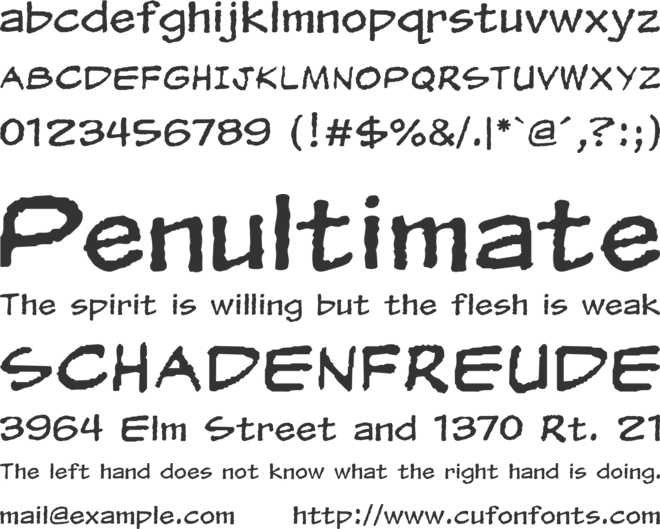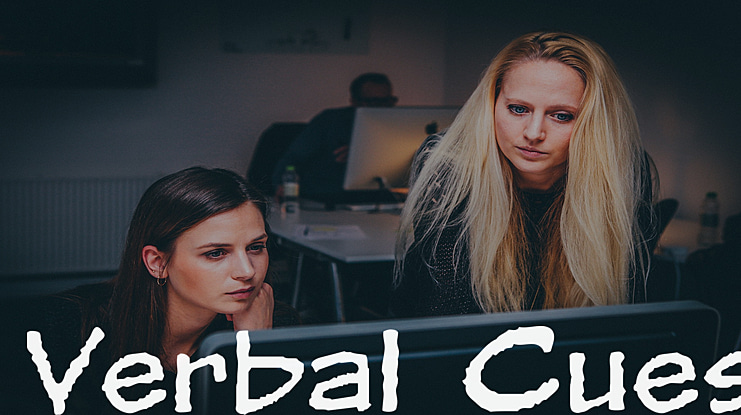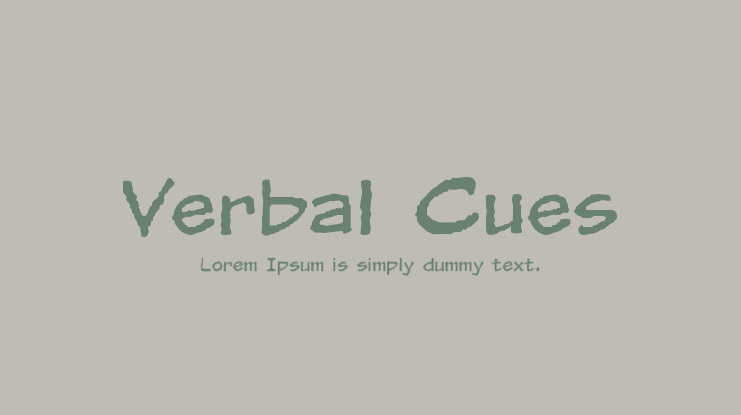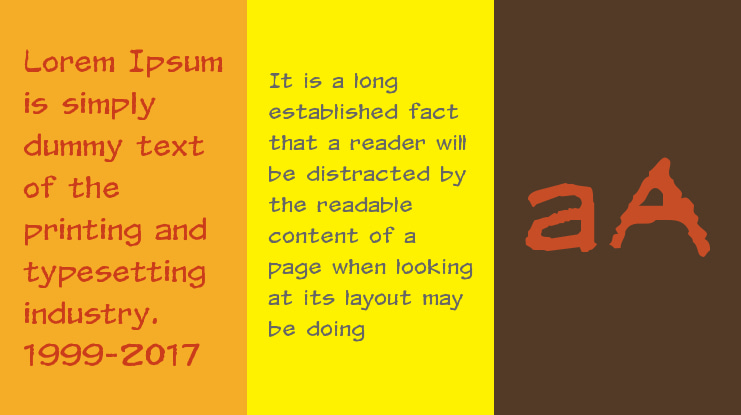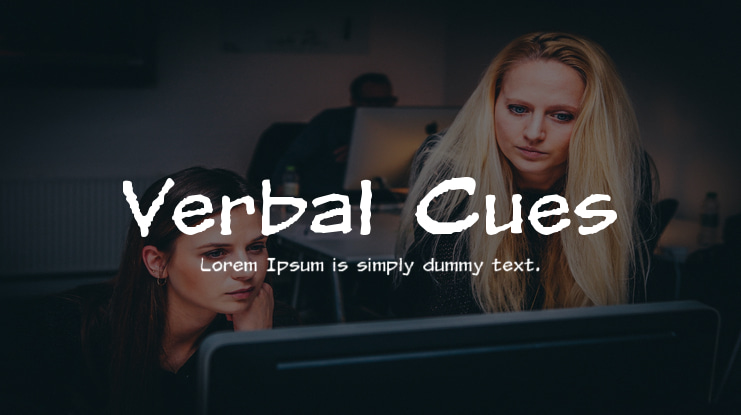
Verbal Cues Font Family
Verbal Cues is based on text styles from old comic books. While researching comic book lettering for the production of our Superhero family, we discovered some very interesting lettering styles along the way. Verbal Cues is a collection of some of the best of those alternative letters. In the PC version of this font family the style names are slightly different from those used in the Mac versions. But the fonts are otherwise identical.